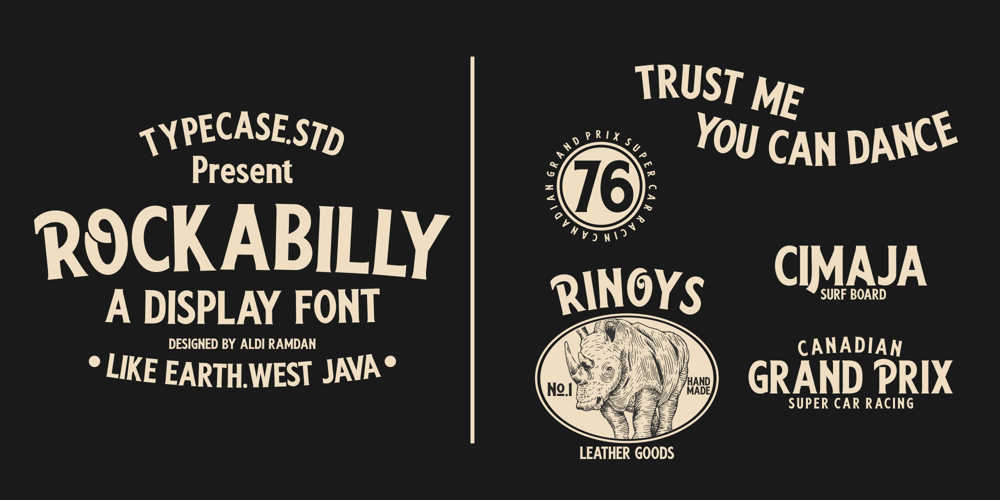
Rockabilly Font Family was designed by ALDI RAMDAN and published by TypeCase.std. Rockabilly contains 1 styles and family package options. Rockabilly is a modern, minimalist serif that works beautifully in modern design pieces, clean lines; serifs are modern, and a little vintage. Looks great in logo work, magazine titles, books and printed materials.